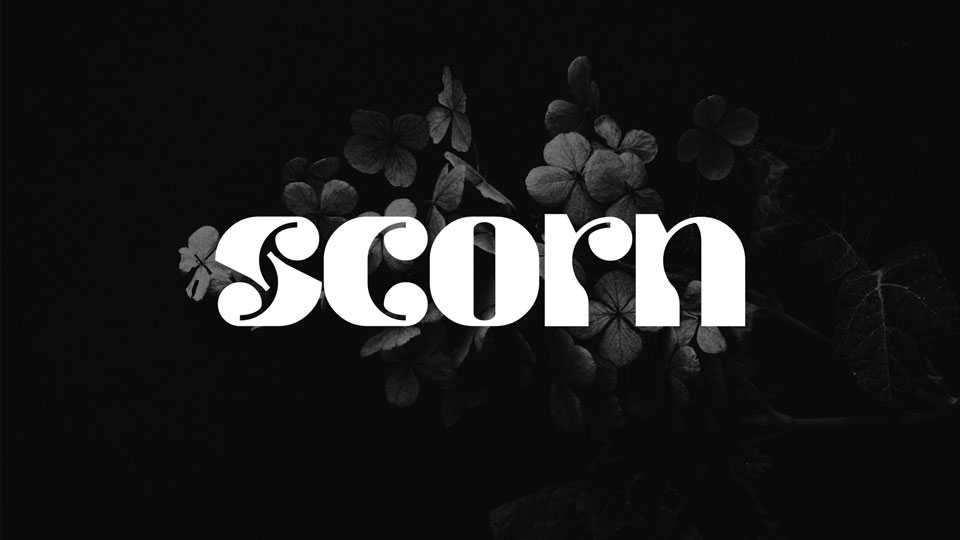
Download Scorn font, a high-contrast decorative typeface that seamlessly blends vintage charm with contemporary design flair. This font, adorned with crafted inktraps, creates a visual journey through retro aesthetics while embracing modern stylistic elements.